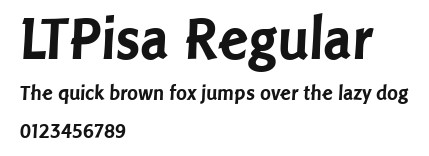
• Font Name: LTPisa Regular
• Full Font Name: Linotype Pisa Bold
About LTPisa Regular.ttf
LTPisa Regular.ttf is a modern, elegant sans-serif font designed for ultimate readability and visual harmony. Perfect for branding, headlines, web design, and print materials.